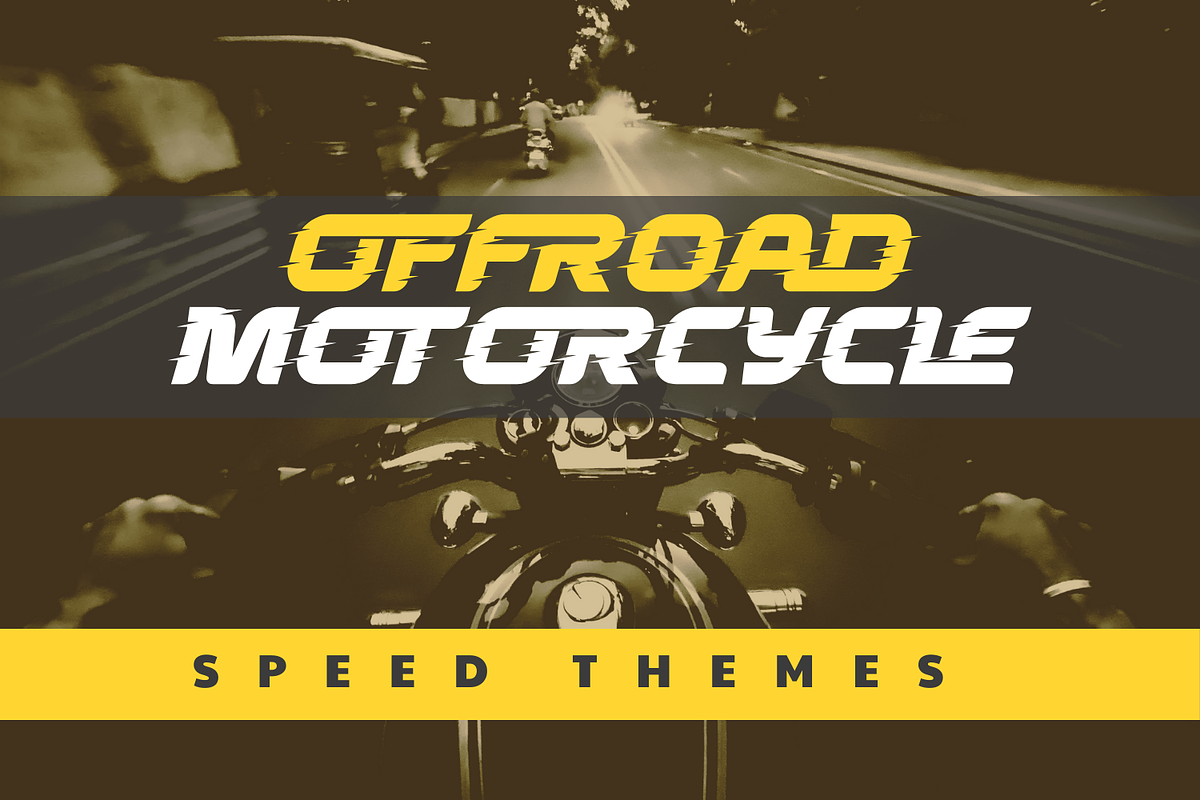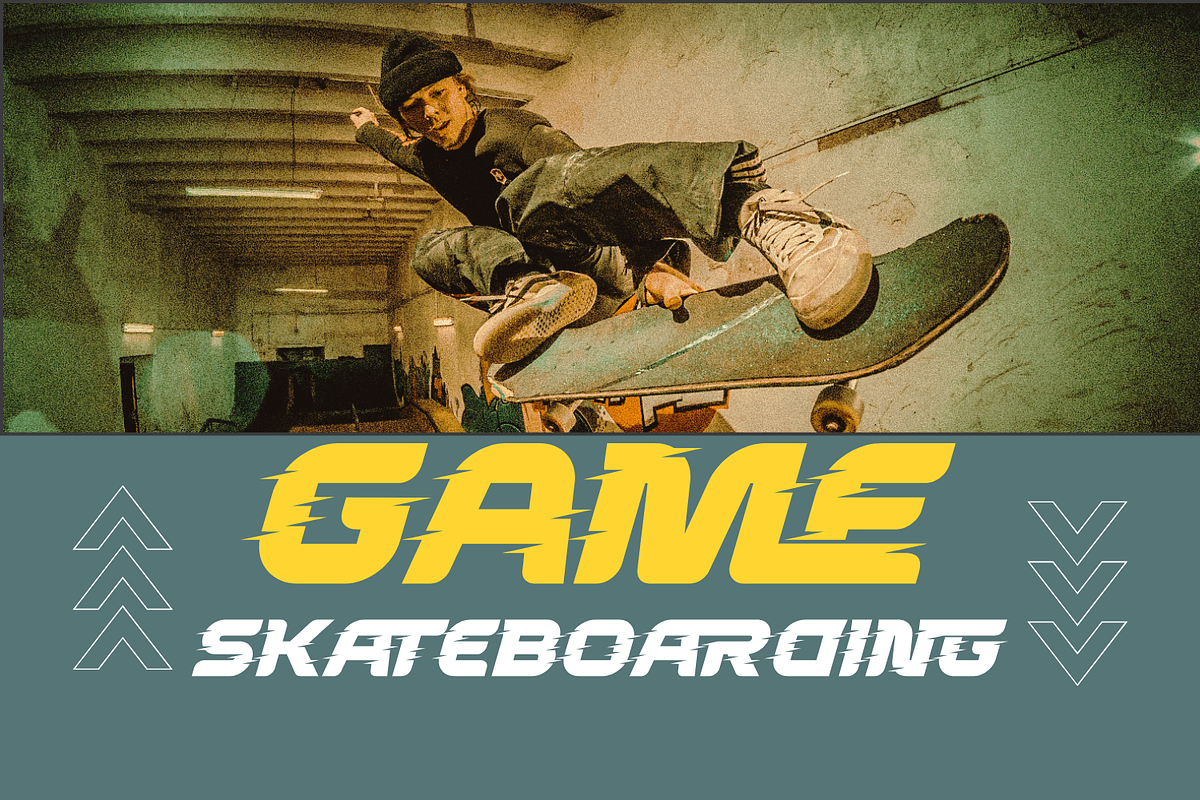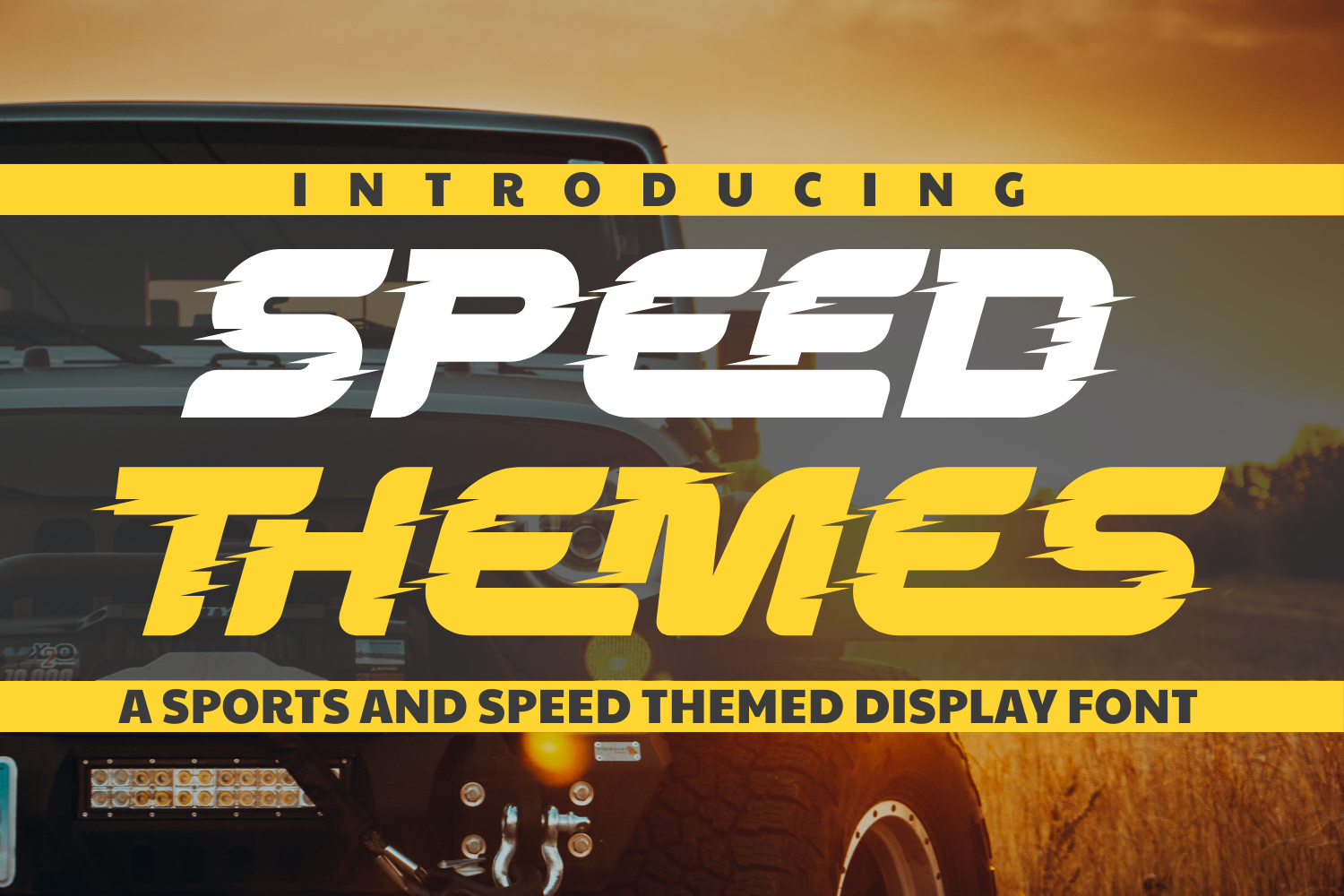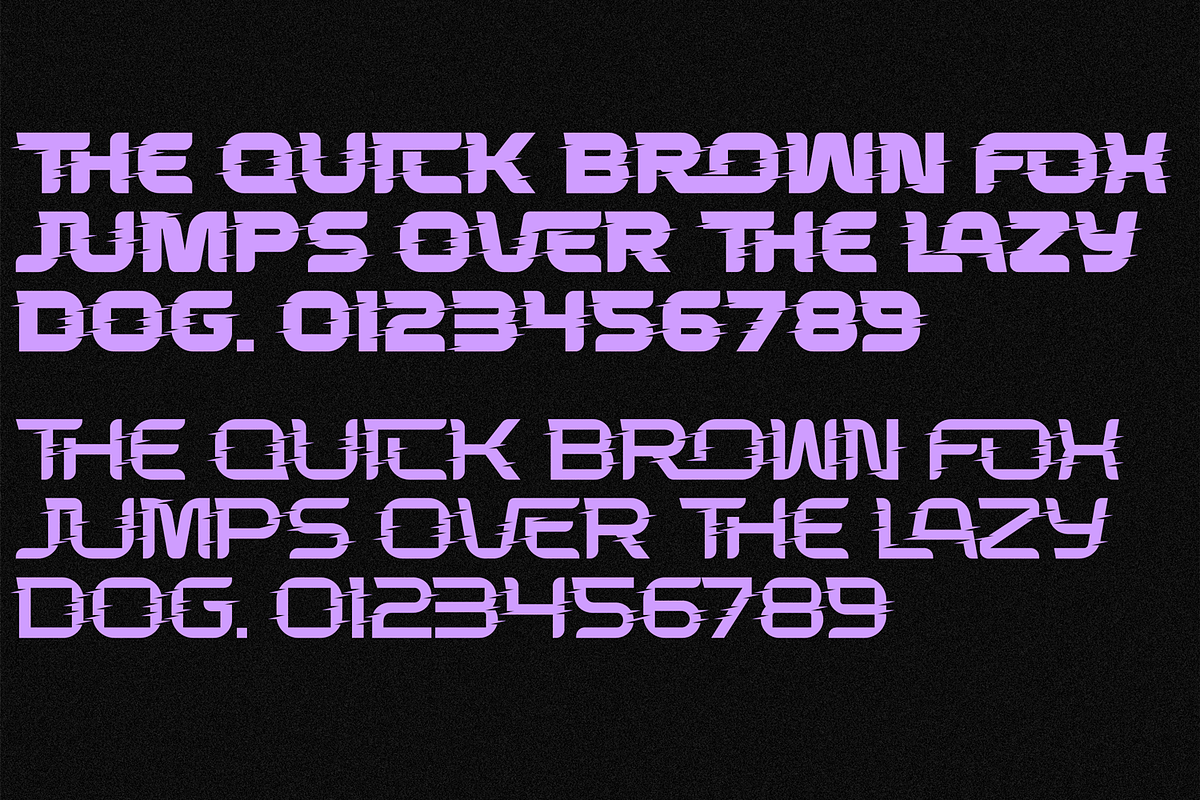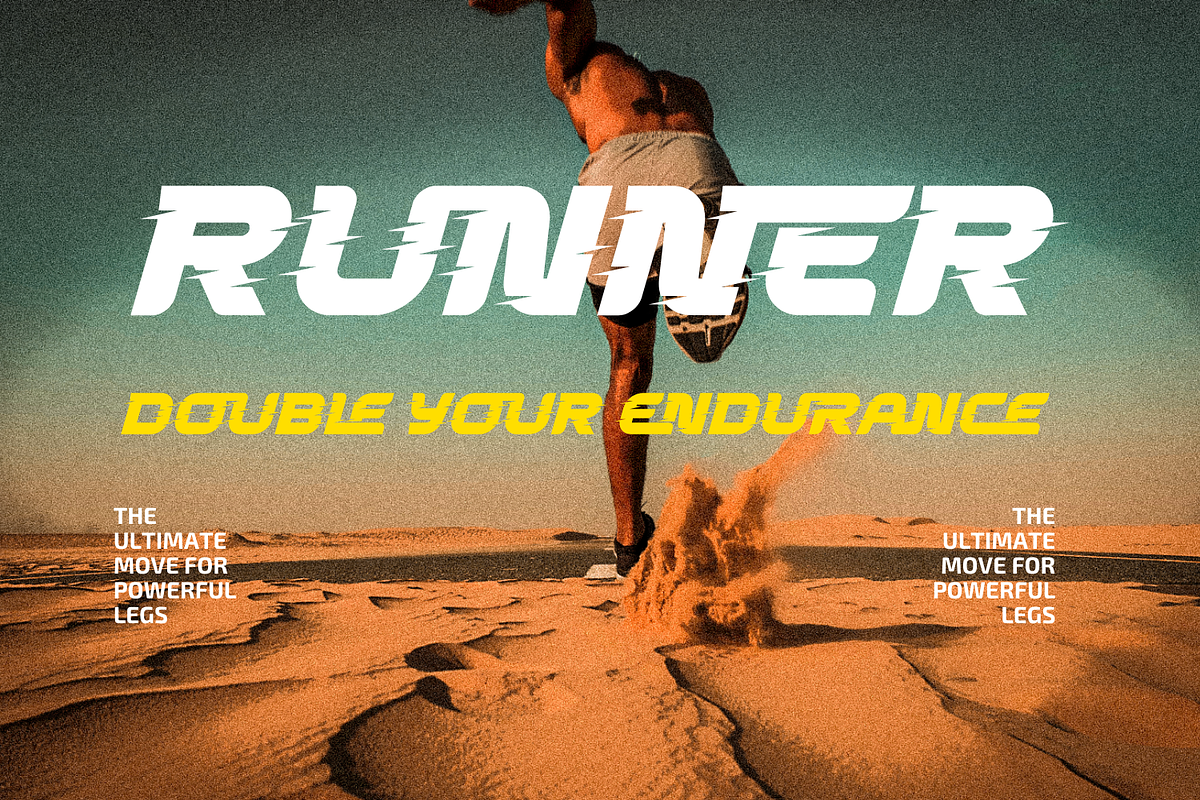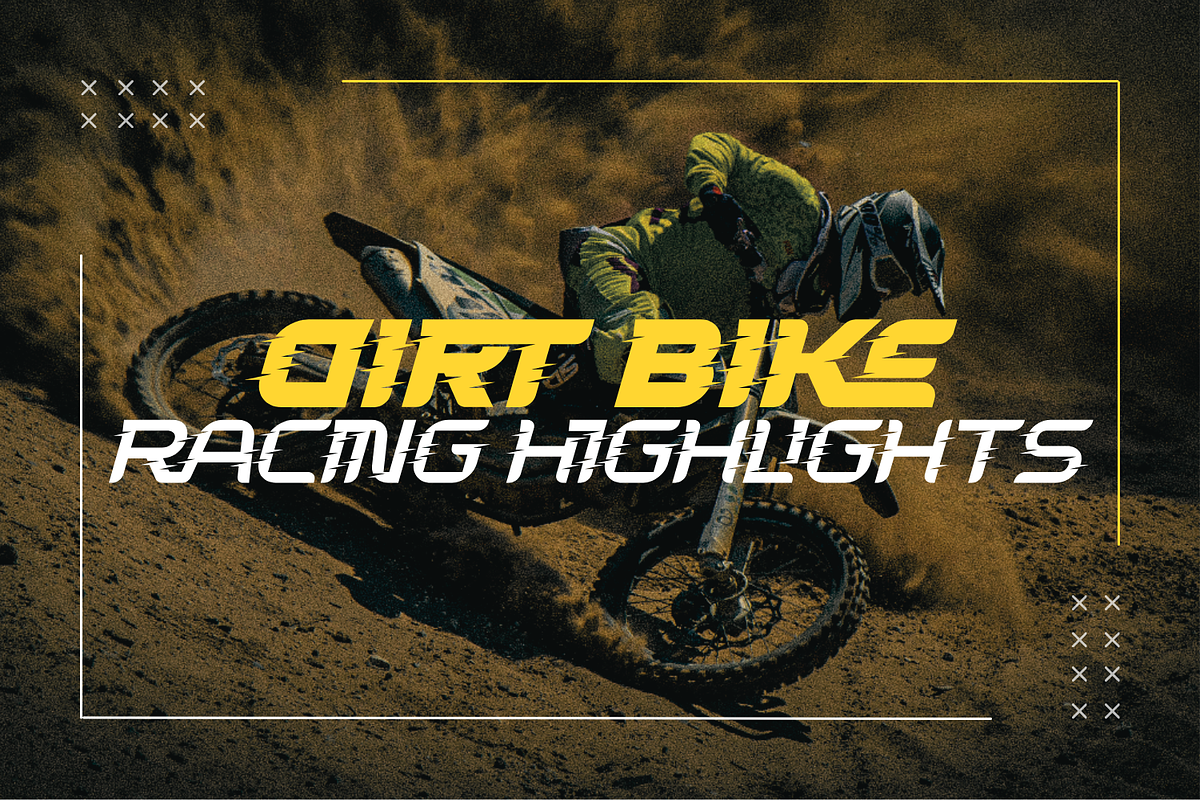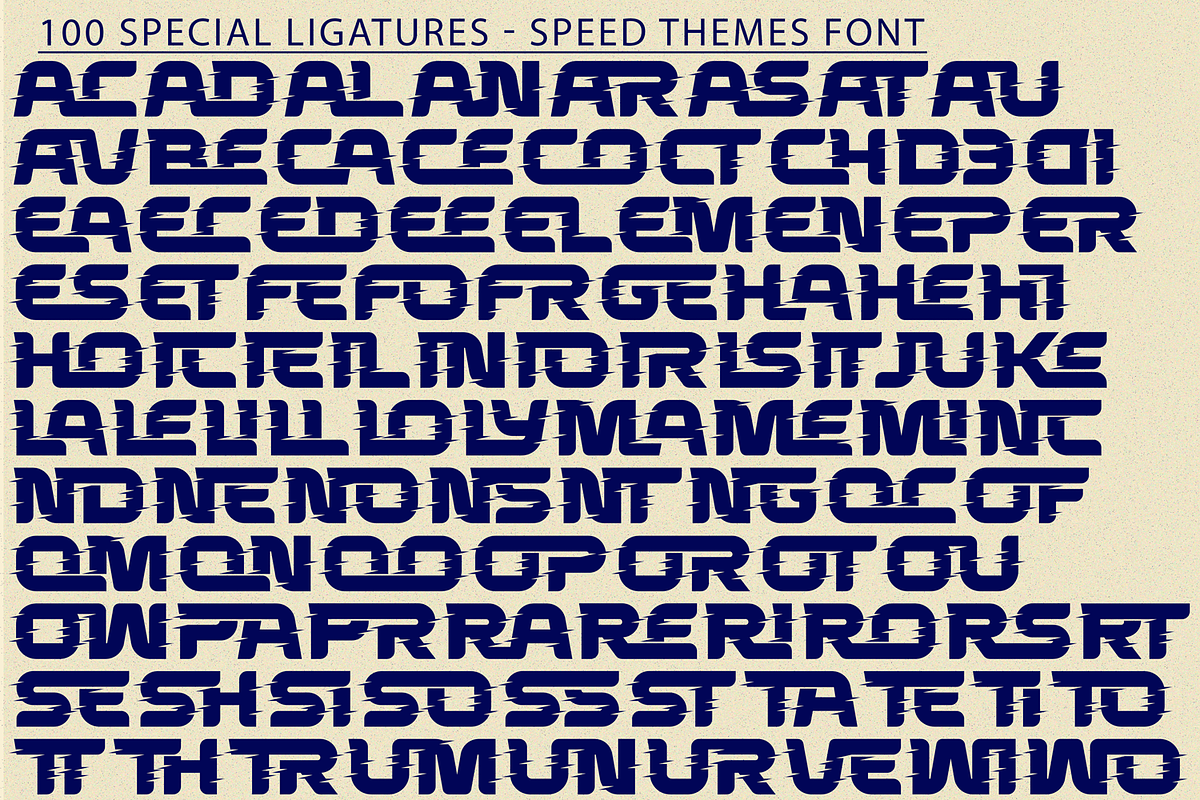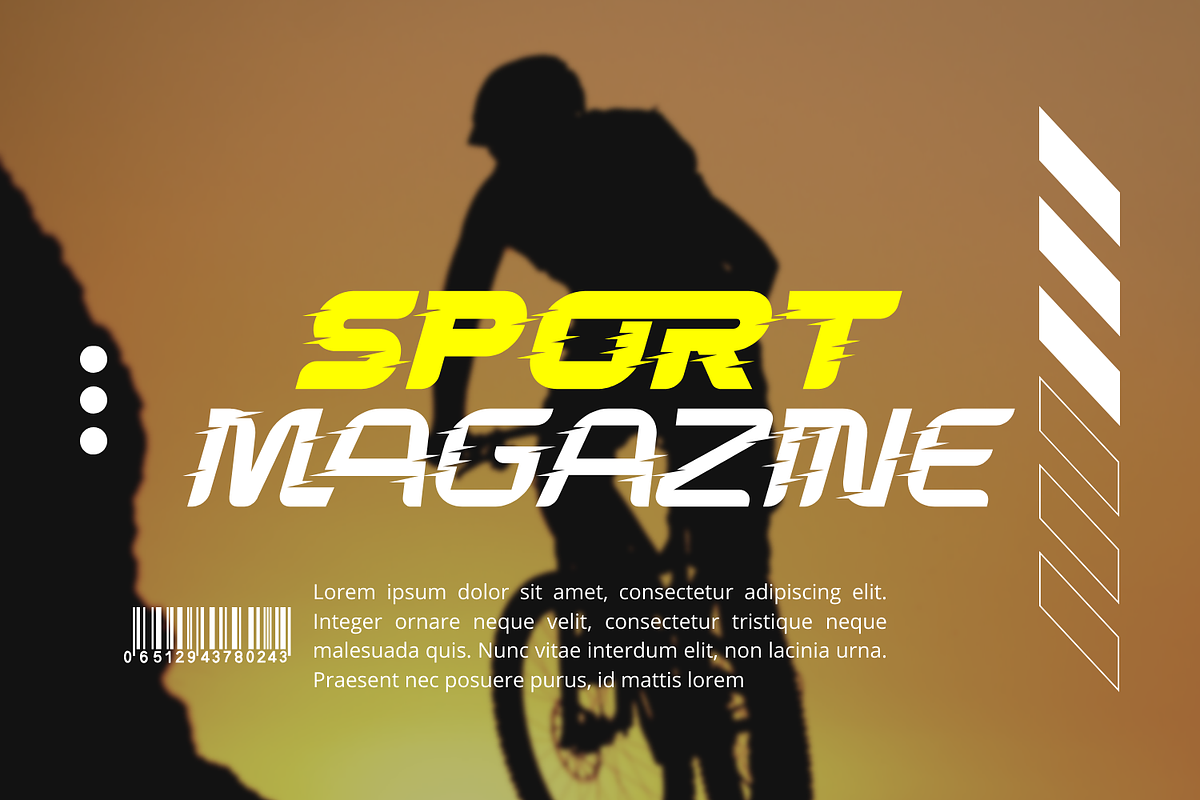
Speed Themes Font
Speed Themes Font is a cool sports font with a fresh style, modern cutouts and dynamic tilt for a quick feel. It's an all-caps font with a distinct appearance of speed. It works well in vintage racing posters, automotive t-shirts, motorcycle events, garage signs, kid's cards... the possibilities are endless!
Speed Themes was built with OpenType features and includes 100 ligatures, alternate, numbers, punctuation, and it also supports other languages.
AC AD AL AN AR AS AT AU AV BE CA CE CH CO CT DE DI EA EC ED EE EL EM EN EP ER ES ET FE FO FR GE HA HE HI HO IE IC IL IN IO IR IS IT JU KE LA LE LI LL LO LY MA ME MI NC ND NE NG NO NT NS OC OF OM ON OO OP OR OT OU OW PA PR RA RD RE RI RO RS RT SE SH SI SO SS ST TA TE TH TI TO TR TT UM UN UR VE WI WO
This font also included full set of:
- Uppercase letters
- Special Ligatures